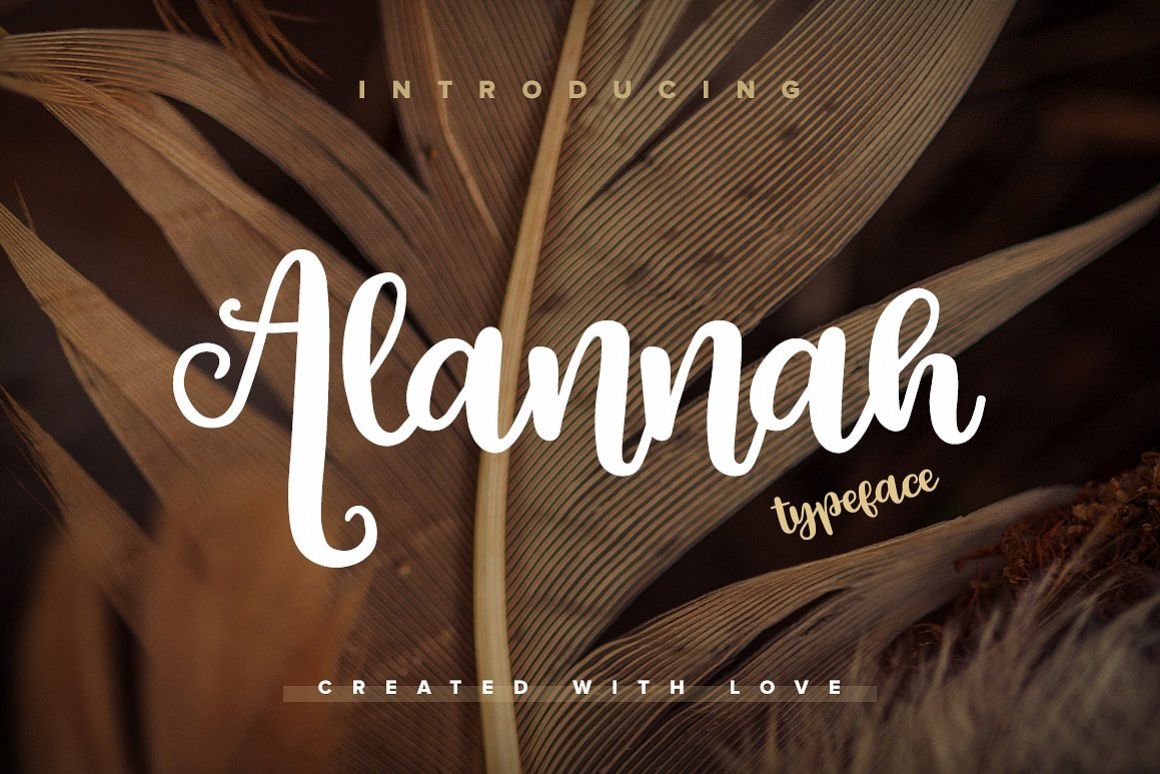
Alannah Script Font
Alannah
Meet Alannah Script, the first typeface from Pixelbuddha ever! It is so exciting to finally present you the result of our collaboration with Junik Studio. Our main goal was to give the font the feeling of playful joy and genuine hand-lettered appearance which can be added to any of your design projects just as easy as to pick the right font from your collection. And, as we believe, that's exactly what it is about. We hope you will feel the same way about it ????
Alannah is a thoughtfully and professionally crafted font offering a vast international language support and rich Open Type features including various contextual alternates and ligatures.
Rich Open Type Features:
• Vast international language support;
• Contextual alternates;
• Dozens of ligatures.